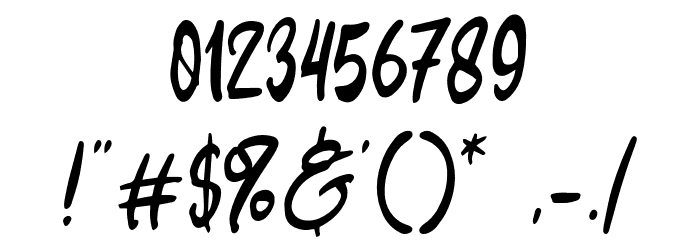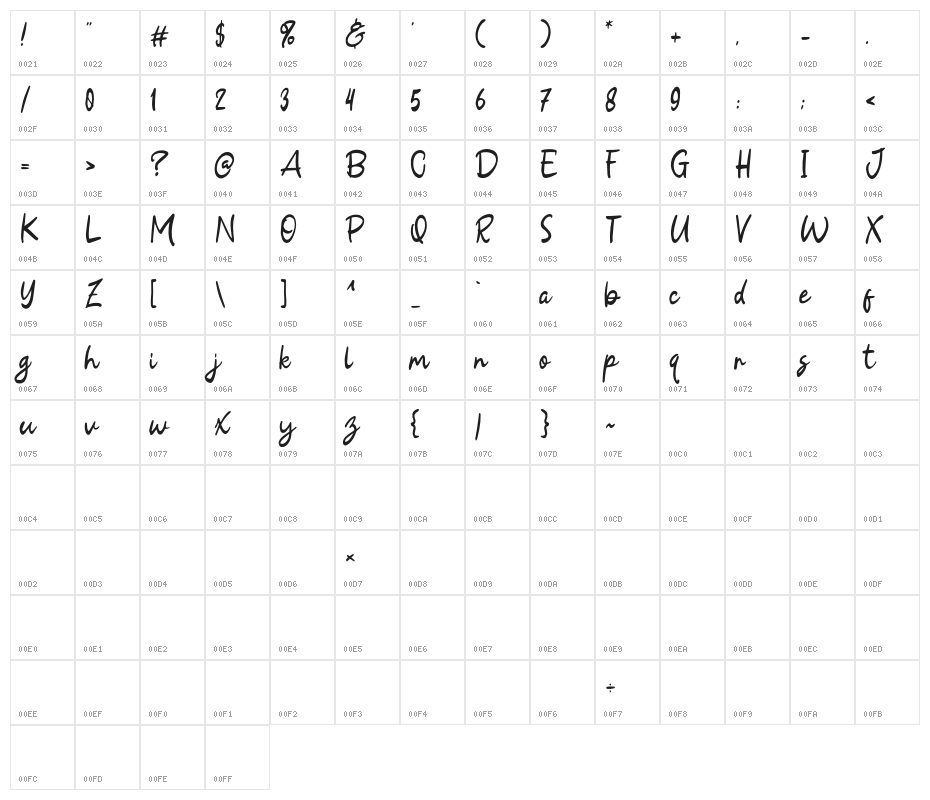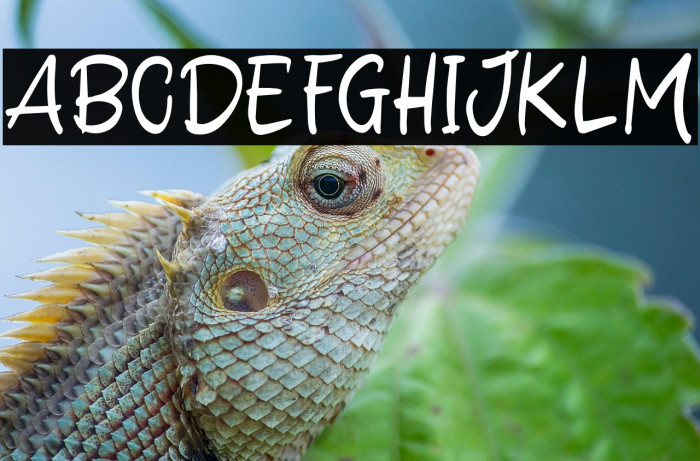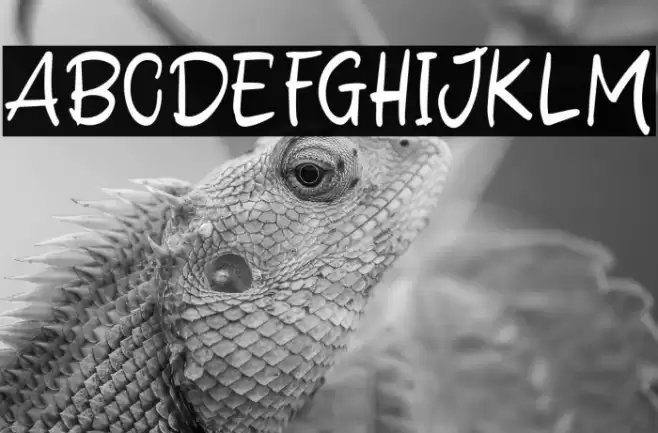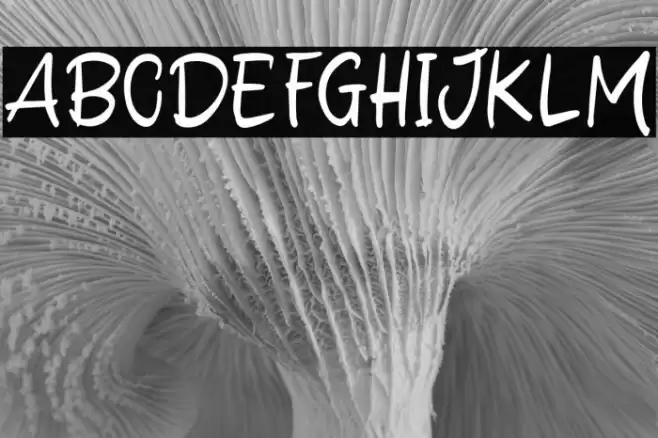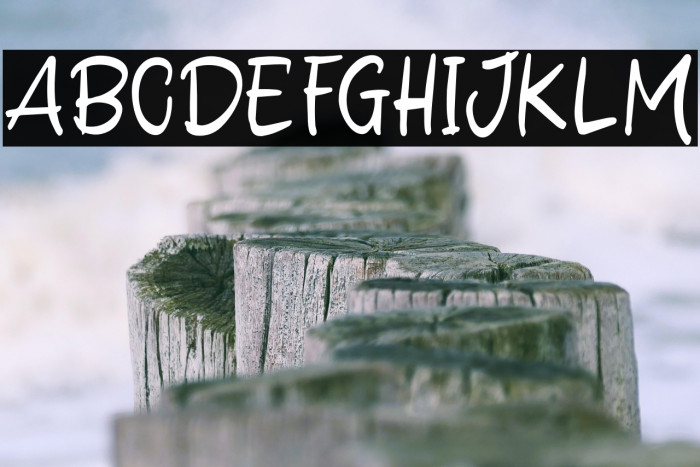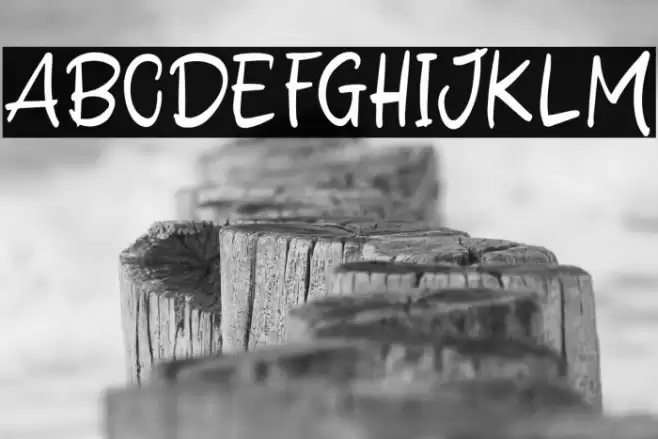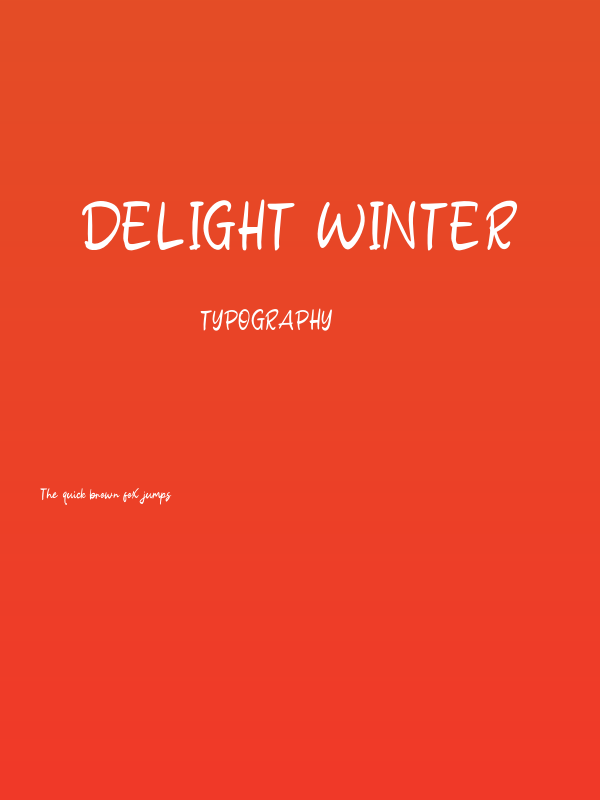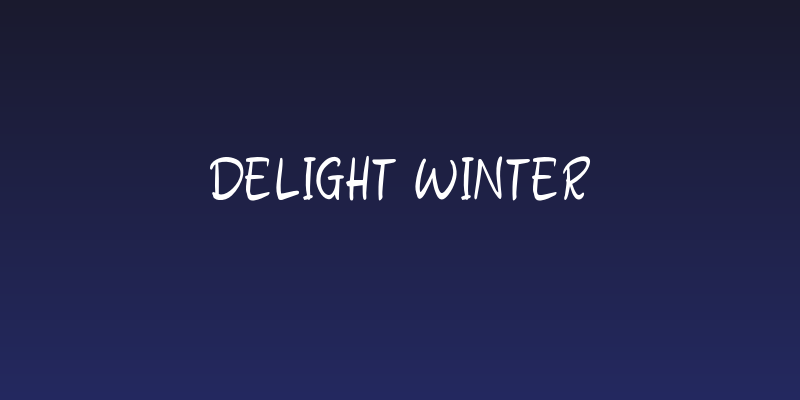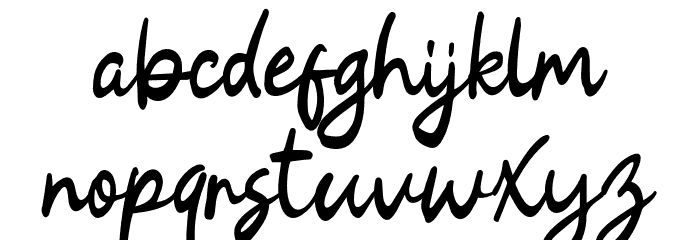
Delight Winter Font
Delight Winter Description
This font features a playful and energetic handwritten style, characterized by its fluid and dynamic strokes. The uppercase letters are bold and slightly slanted, giving a sense of movement and spontaneity. The lowercase letters maintain a consistent flow, with some letters connecting smoothly to others, enhancing the handwritten feel. Numbers and special characters are crafted with the same lively touch, ensuring uniformity across all glyphs. The font's overall appearance is casual yet stylish, making it suitable for projects that require a personal and approachable touch.